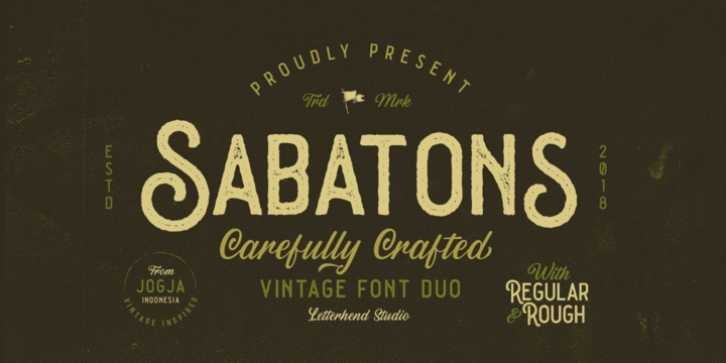
Sabatons was designed by Hendry Juanda and published by Letterhend. Sabatons contains 4 styles and family package options.
Sabatons is a sans and script font duo. The vintage feel is really perfect for you who needs a typeface for logotype, apparel, branding, packaging, advertising and more.
The regular version will give you the clean and solid feel.
The rough version will give you the vintage and aged feel.
This typeface comes in uppercase, lowercase, punctuations, symbols & numerals, a bunch of alternates, ligatures, etc also support multilingual and already PUA encoded. Also with stamp version that will make the fonts more vintage!